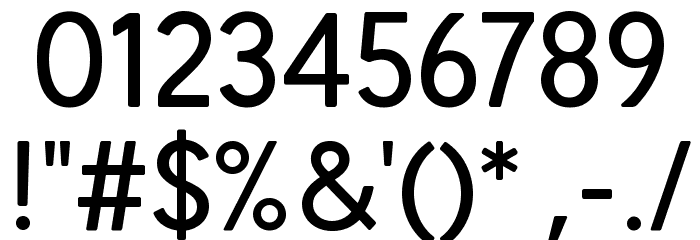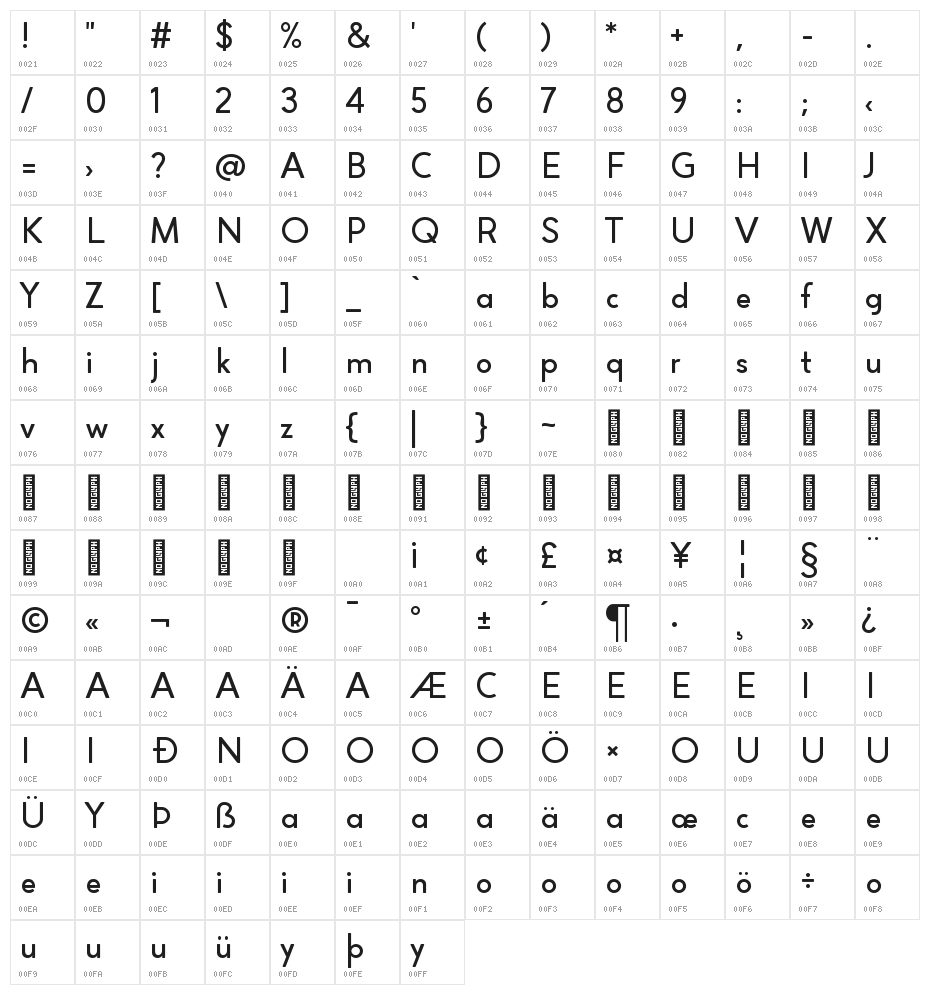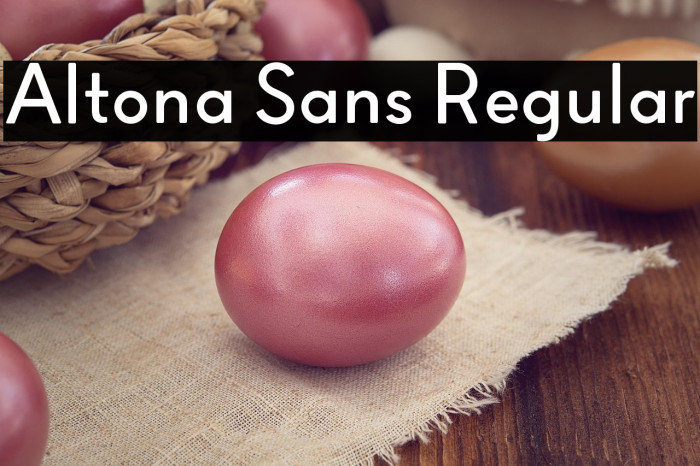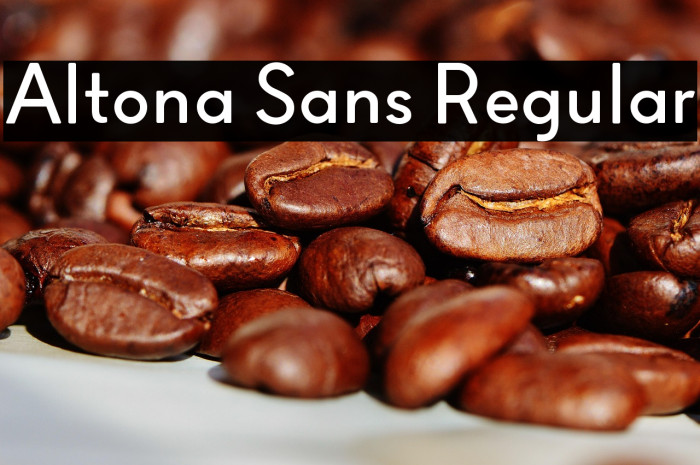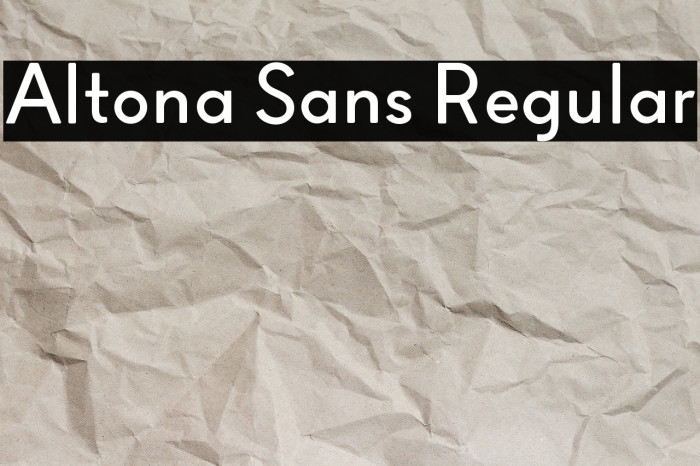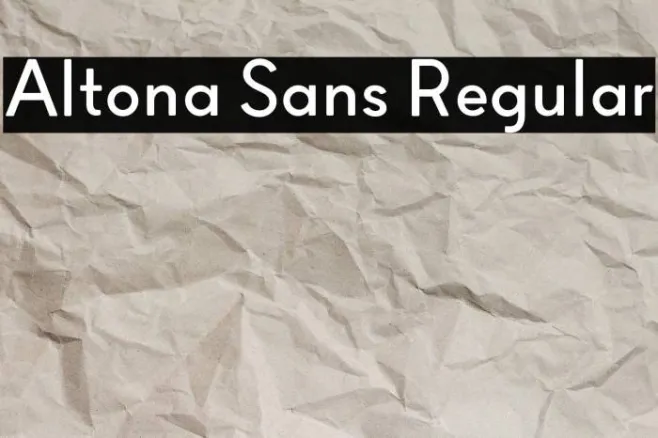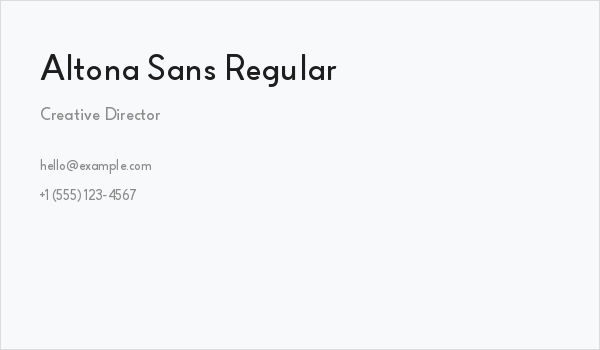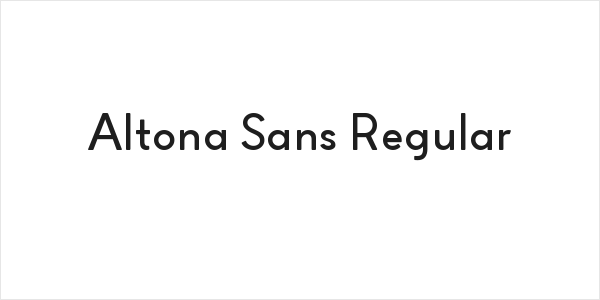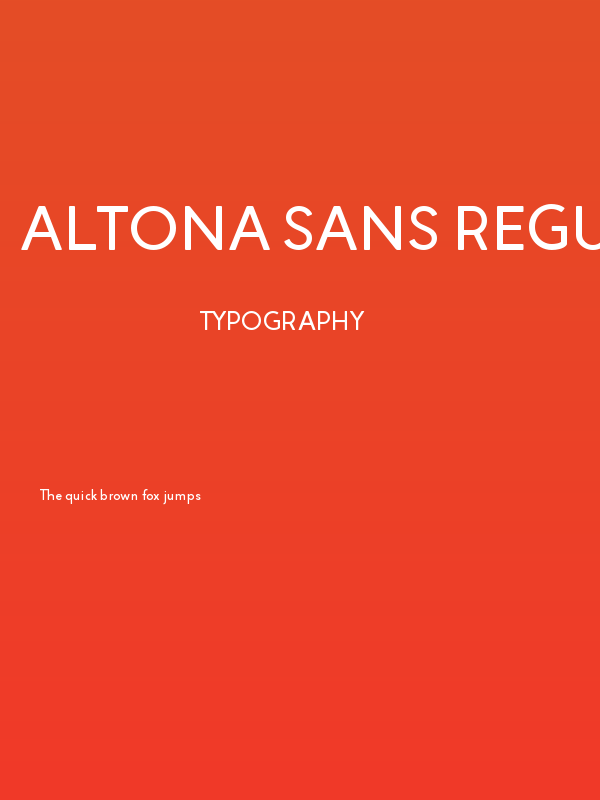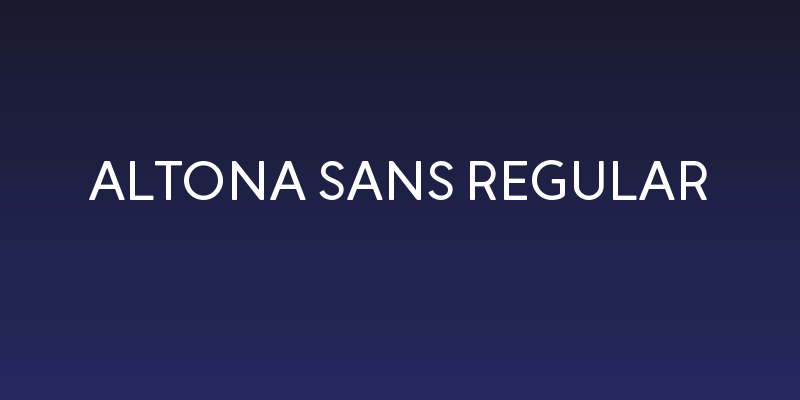
Altona Sans Regular Font
Altona Sans Regular Description
This typeface features a clean and modern sans-serif design, characterized by its geometric shapes and uniform stroke widths. The uppercase letters are bold and assertive, while the lowercase letters maintain a consistent and harmonious flow. The numerals are clear and easily distinguishable, making them suitable for various applications. The special characters are well-integrated, offering a comprehensive set for diverse typographic needs. Overall, this font exudes a contemporary and professional aesthetic, ideal for both digital and print media.
| Proposed Projects | Ideal for branding, web design, advertising, and editorial layouts. |